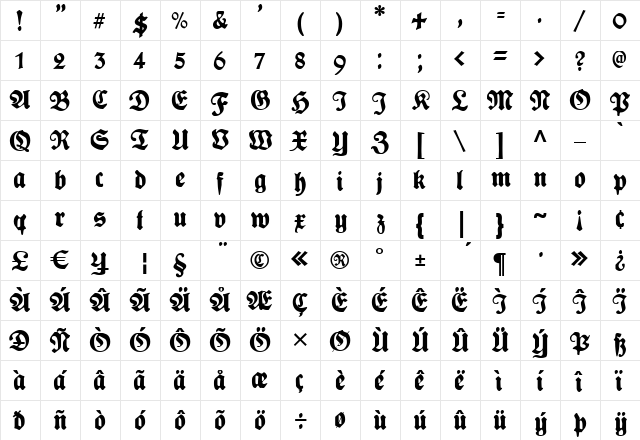
Plakat-FrakturUNZ1L Black
Design Context for Plakat-FrakturUNZ1L Typeface
Plakat-FrakturUNZ1L draws on the rich tradition of blackletter calligraphy, with dense, angular strokes that evoke medieval manuscripts and old-world craftsmanship.
A natural fit for music packaging, gothic editorial design, and any project that needs historical weight.
Font Pairing: Pair with a clean neutral sans-serif for body copy to let Plakat-FrakturUNZ1L's character lead without overwhelming the composition.
Pro Tip: Reserve Plakat-FrakturUNZ1L for display and logo use — pair it with a clean sans-serif for body copy to prevent the composition from feeling oppressive.